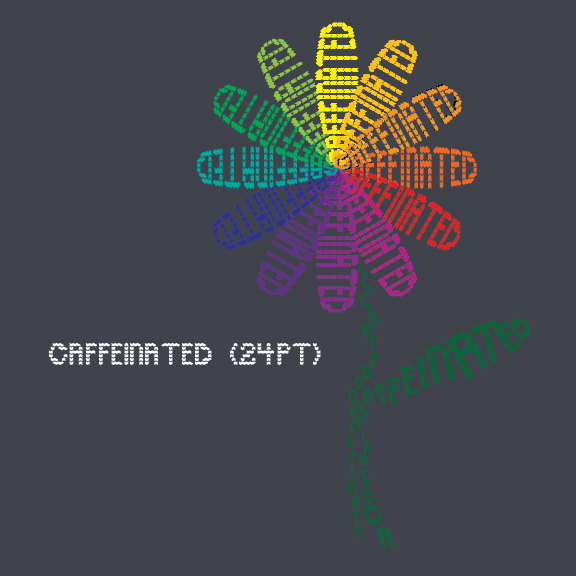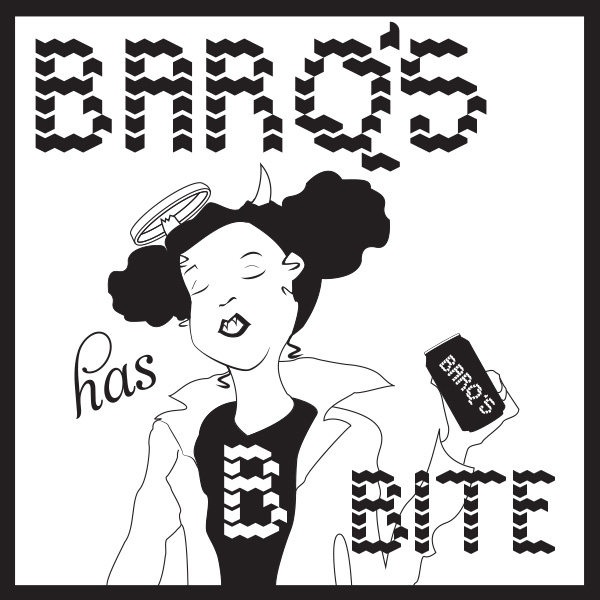
I really dig this font for descriptive use on "rough and tumble" images. It feels raw and exposed, like the image the author has listed. Niiiiiiice job.
Interesting font. optical illusion, As if it consists of cubes directed in different directions.